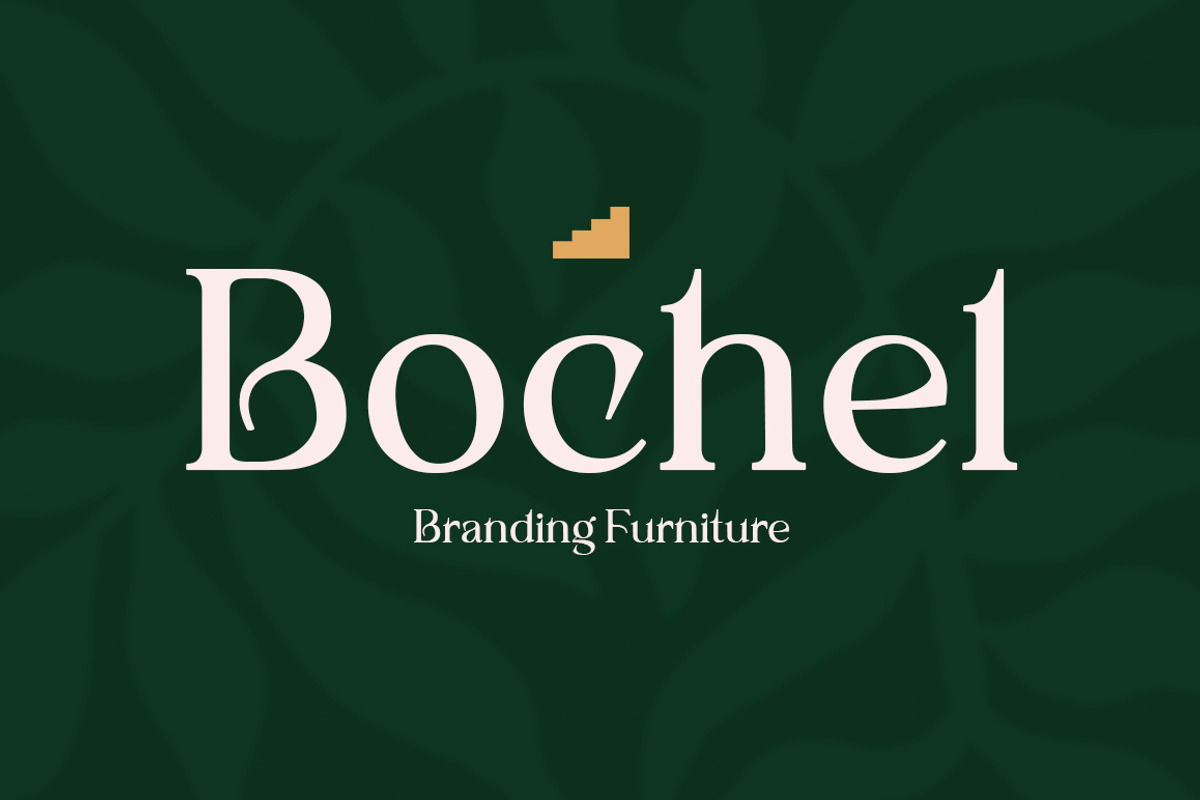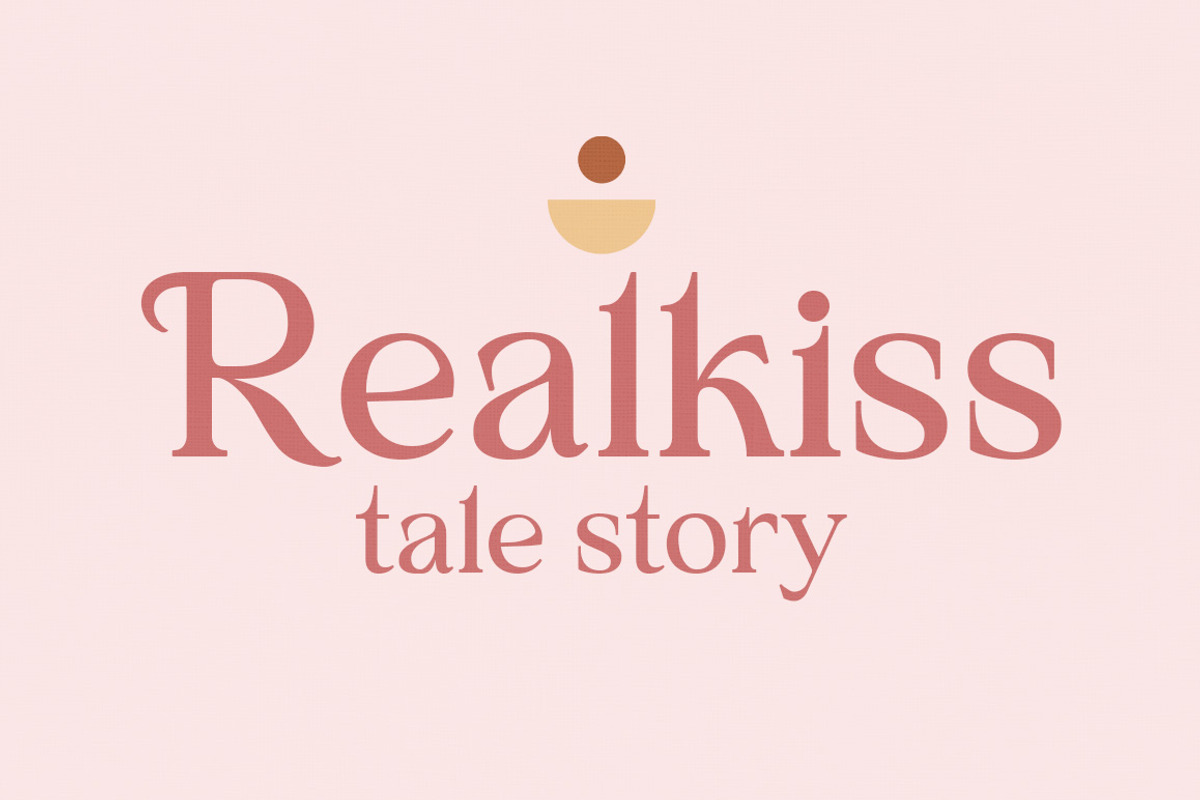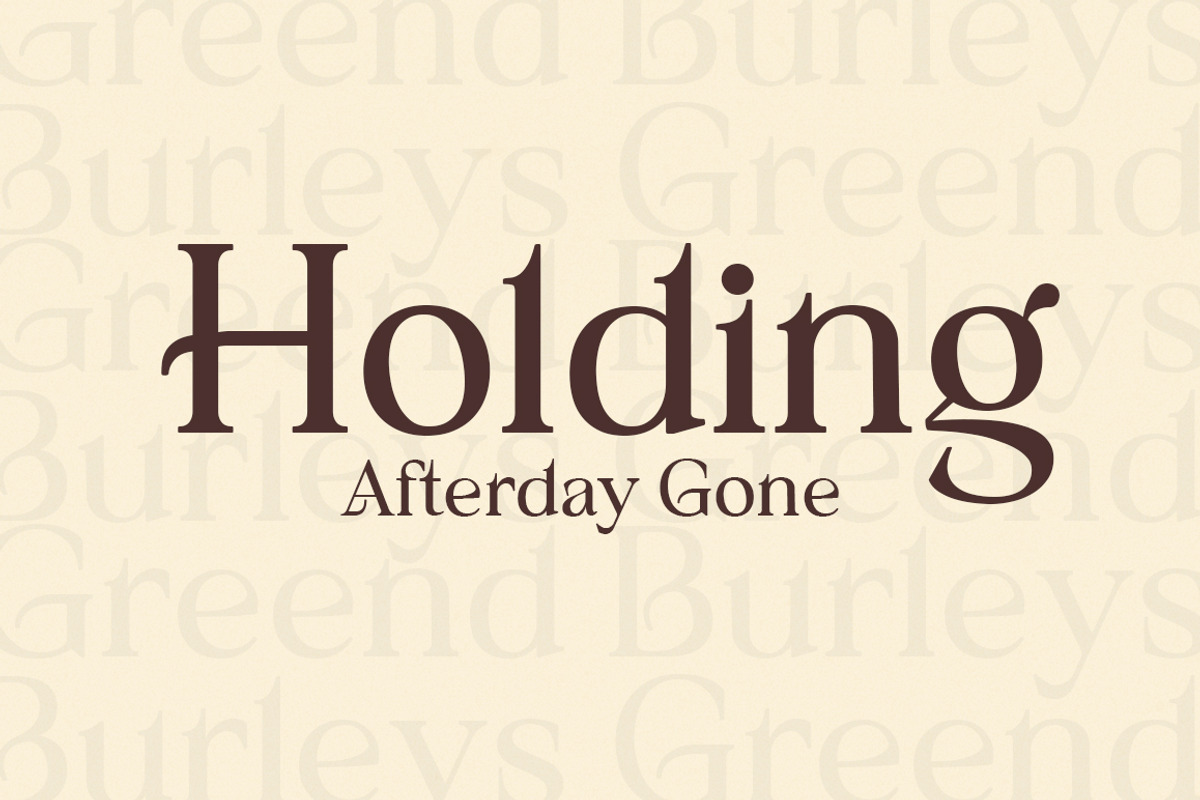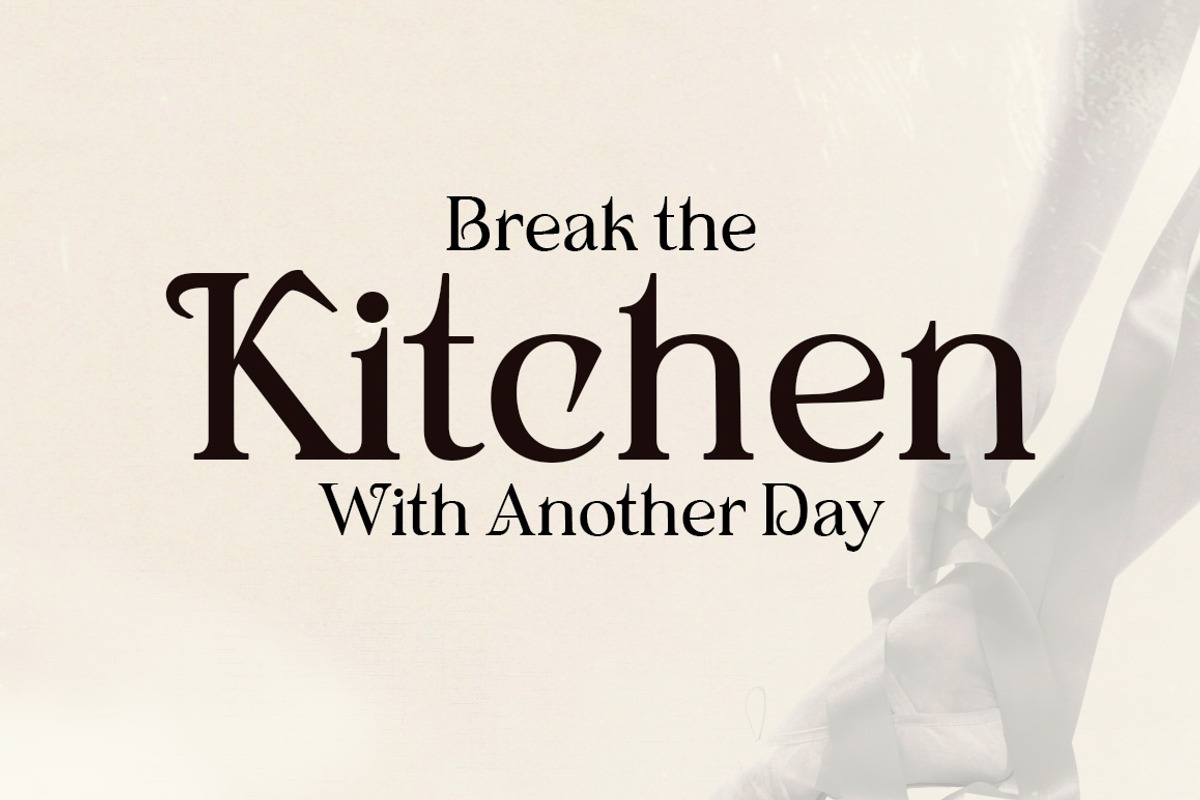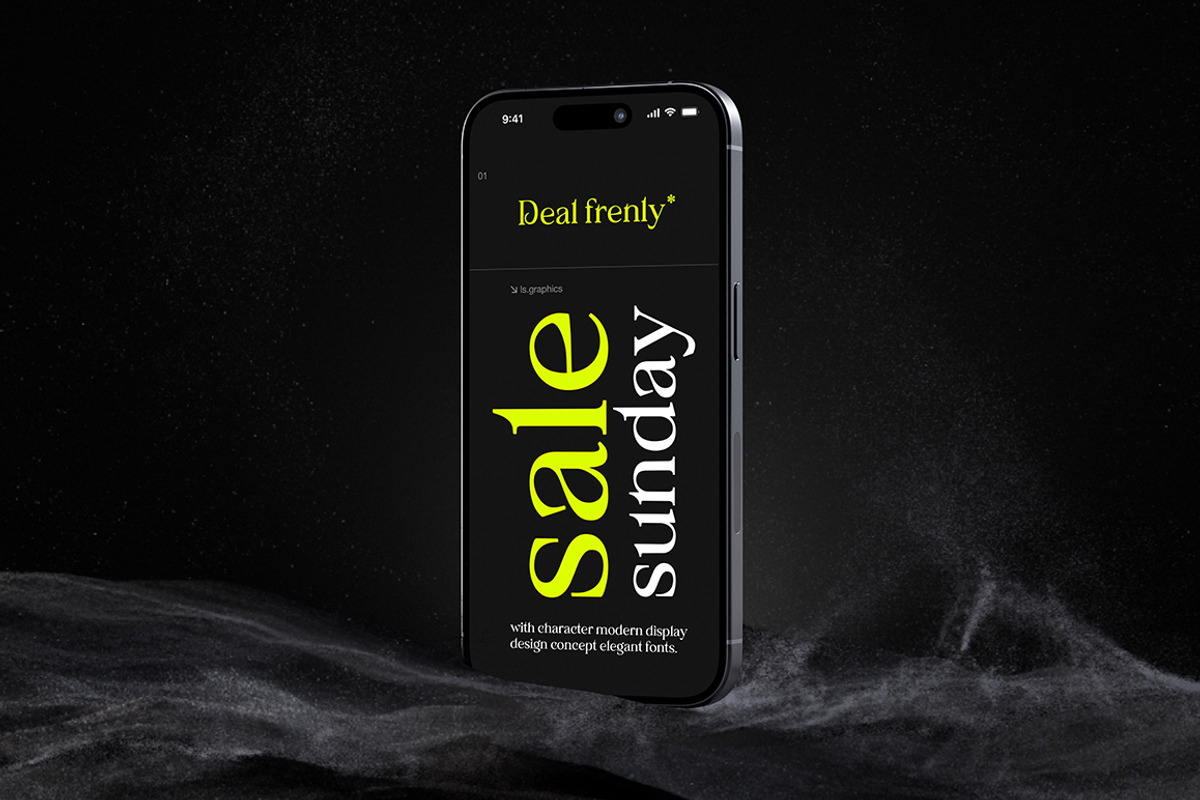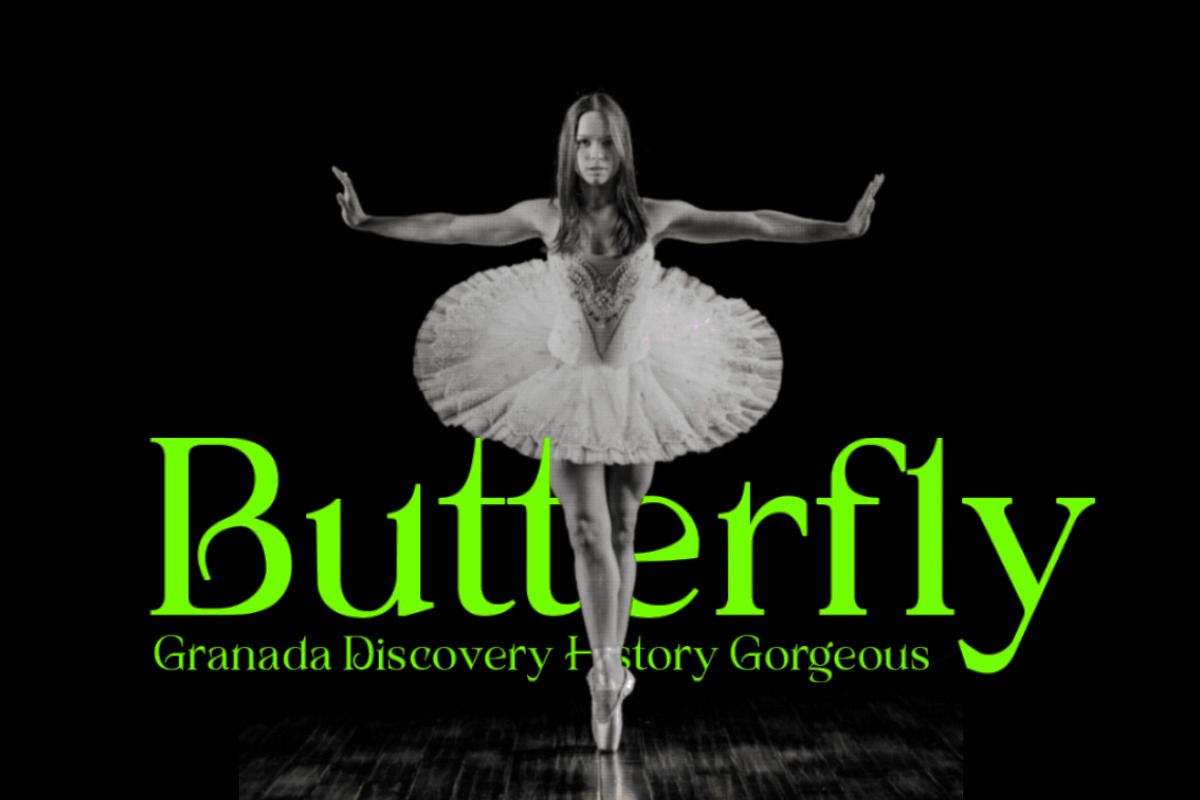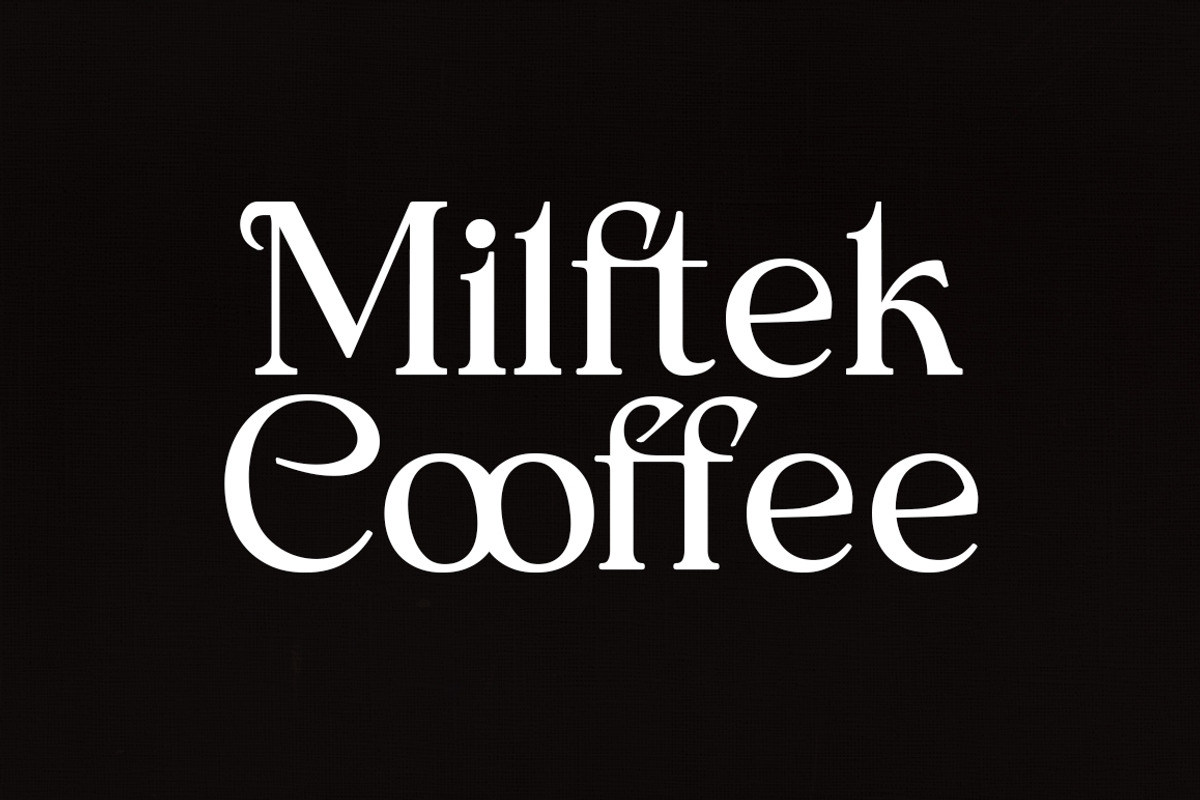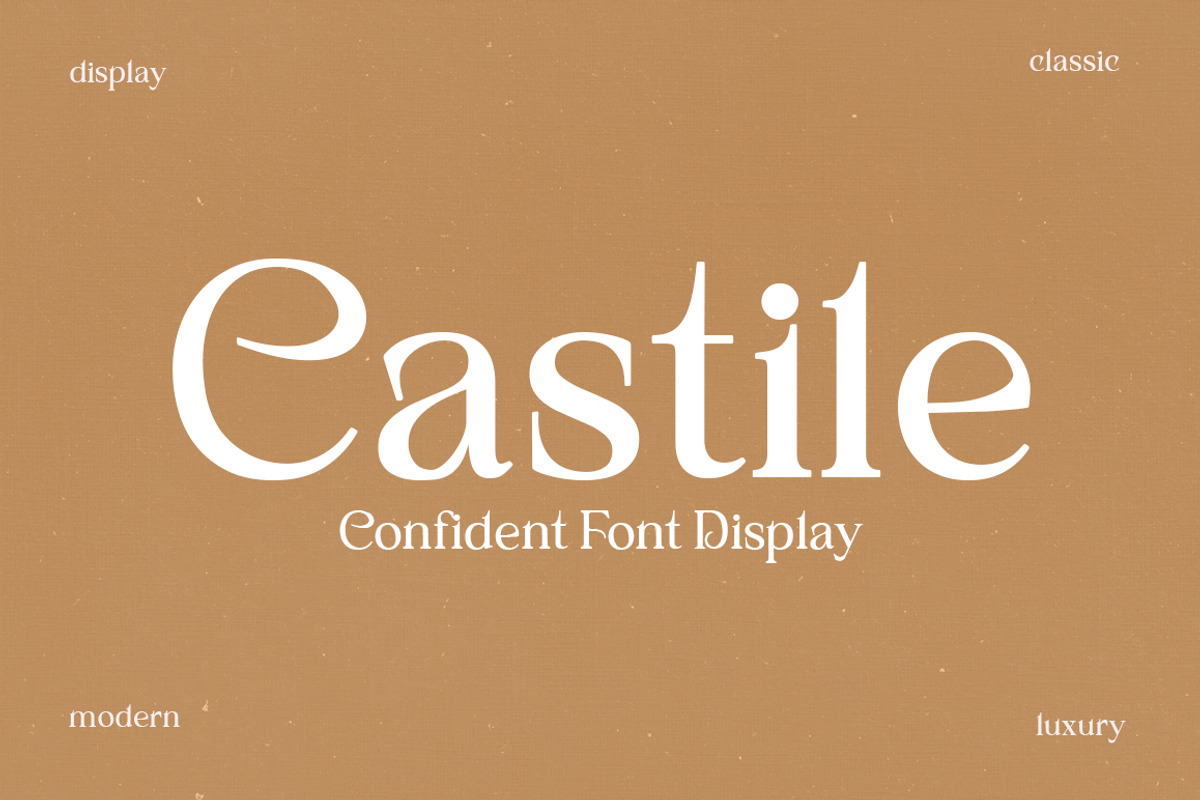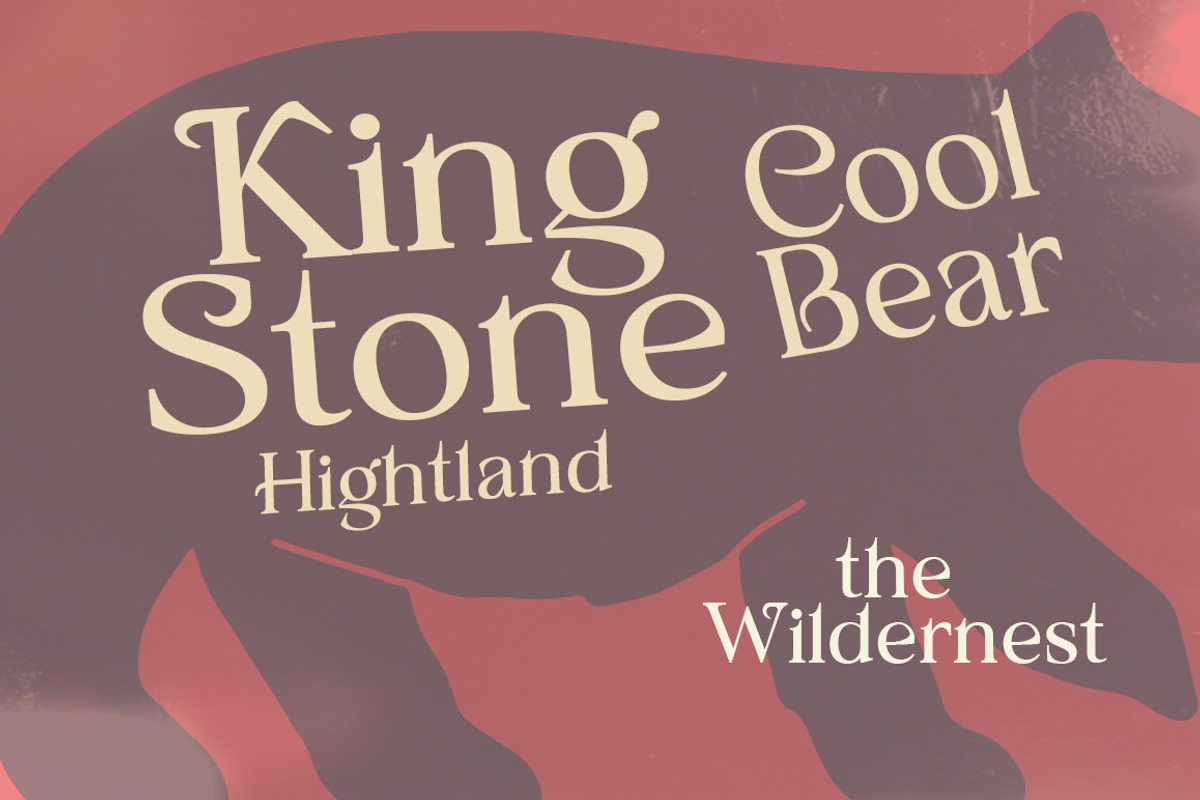
Castile
Castile is Retro with extreme cuts, sharp angles and interactive straps. Affected characters are spread across three capital-only subfamilies, with distinct styles, and distinct personalities. The bold separation of characters and the considered standard of ligature create a type that is solid, modern and attractive.
Castile is a modern fashion serif font, each letter has been carefully crafted to make your text look unique.